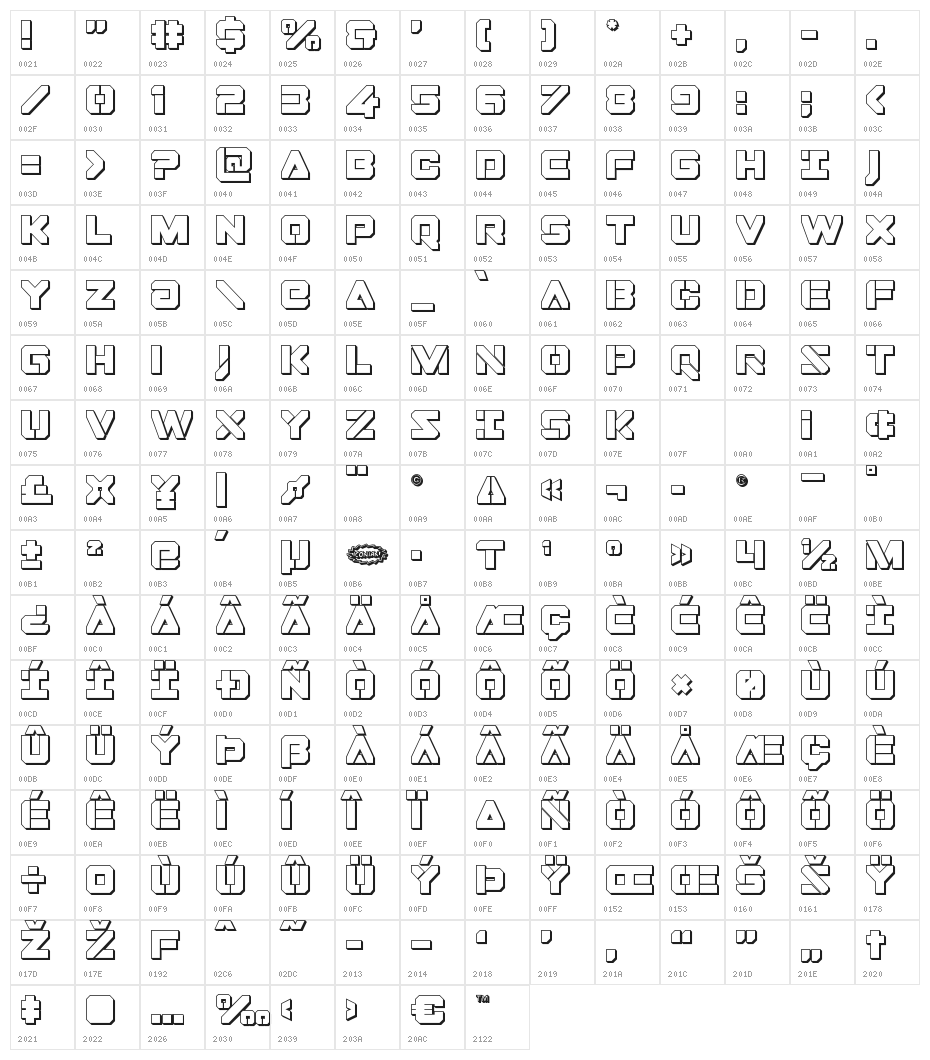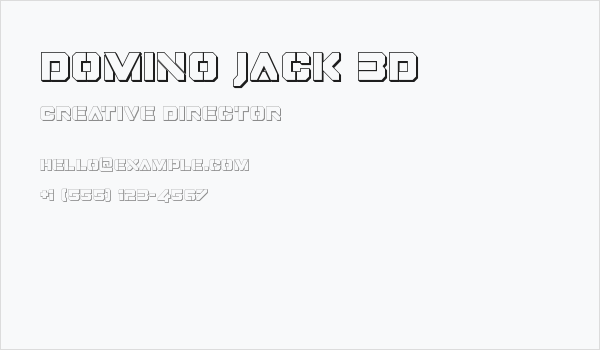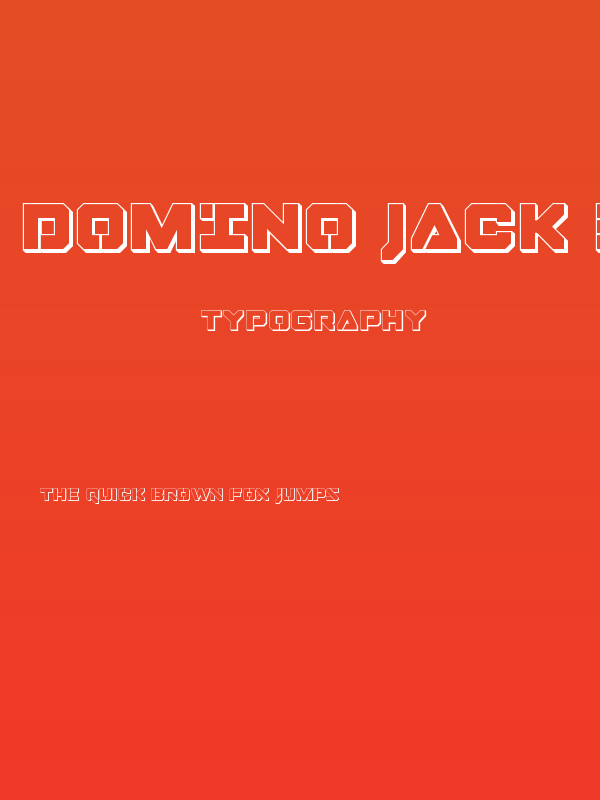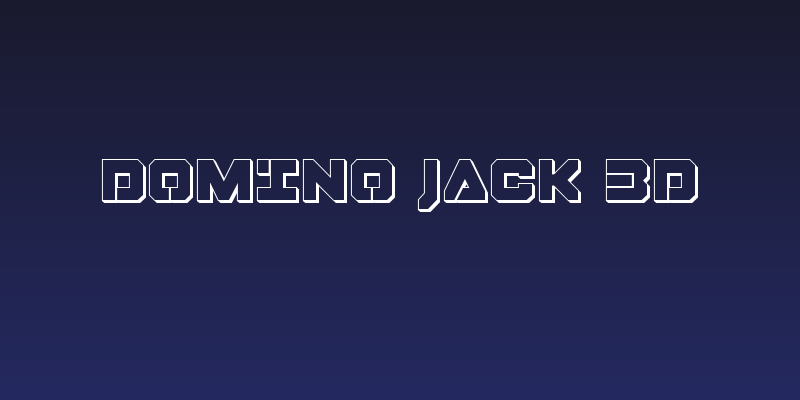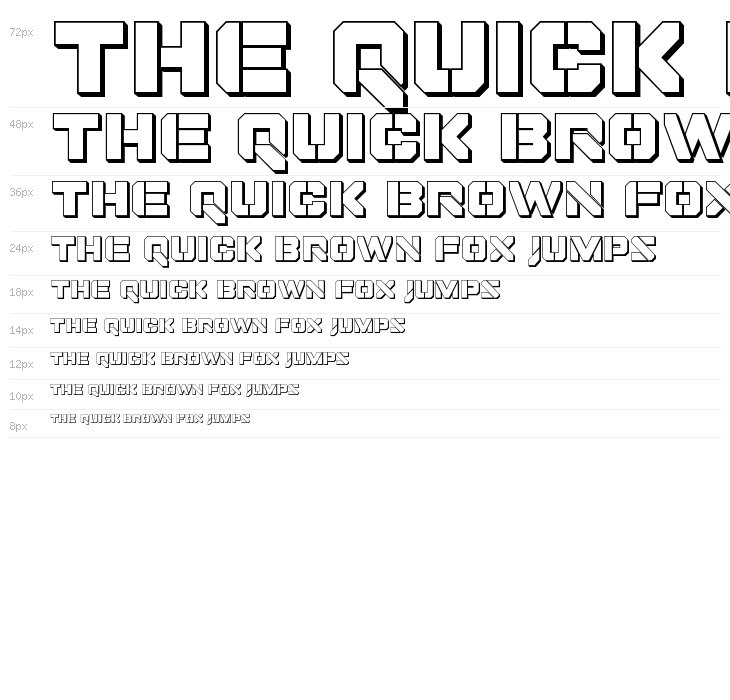
Domino Jack 3D Font
Domino Jack 3D Description
This font features a bold, three-dimensional appearance with a geometric and blocky style. Each character is outlined, creating a shadow effect that enhances its 3D look. The letters are uppercase, with a consistent thickness throughout, giving them a sturdy and impactful presence. The design is modern and futuristic, making it suitable for attention-grabbing headlines or titles. The numbers and special characters follow the same design principles, ensuring uniformity across all glyphs. The font's unique style makes it stand out, ideal for projects that require a bold and dynamic visual impact.
| Proposed Projects | Ideal for video game titles, sci-fi movie posters, tech branding, and dynamic advertising campaigns. |